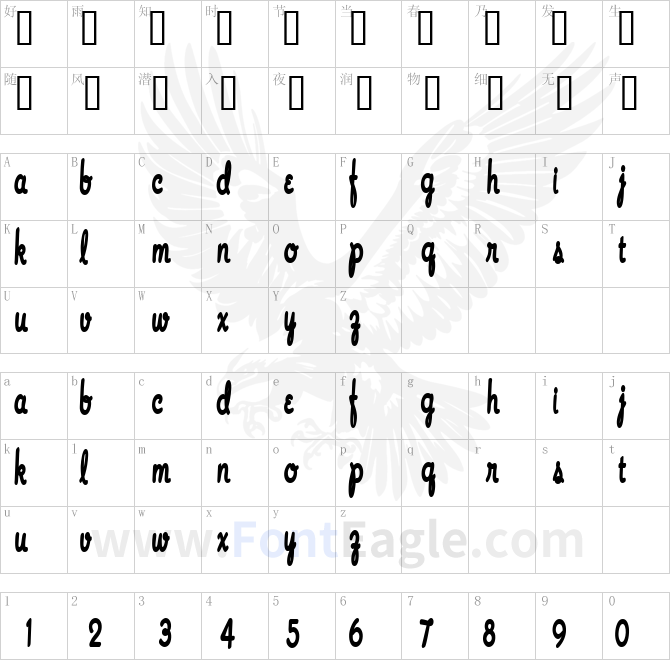
- Font name:ThousandOceans
- Font Subfamily ID:Macromedia Fontographer 4.1.3 ThousandOceans
- Font Full Name:ThousandOceans
- Font Version:Macromedia Fontographer 4.1.3 2/9/03
- Postscript:ThousandOceans